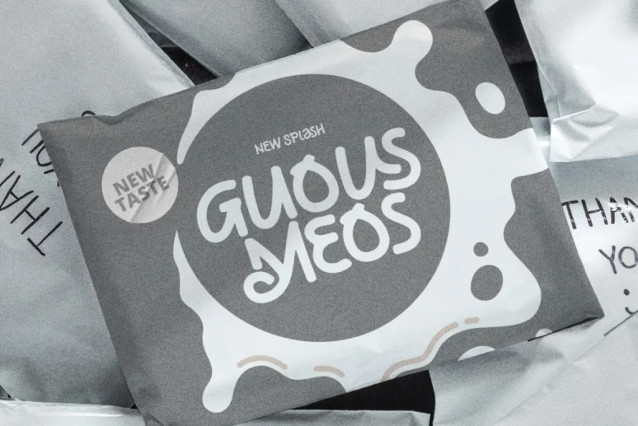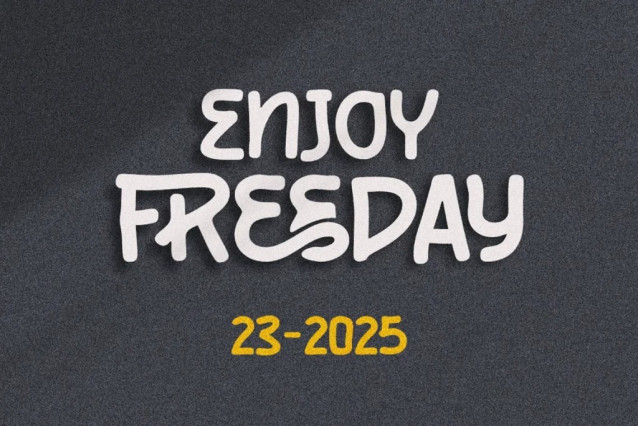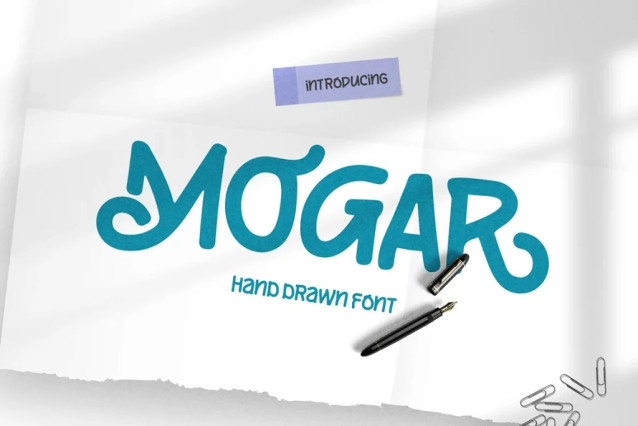
Mogar Font
Mogar Font is an authentic Hand drawn font. It comes with monoline unique shapes. The font equipped with more ligature and alternates which is perfect use for Branding, Logo Design, Lettering, Logotype, Poster, magazine, packaging, flyer, book covers, photography, special events and other design project.